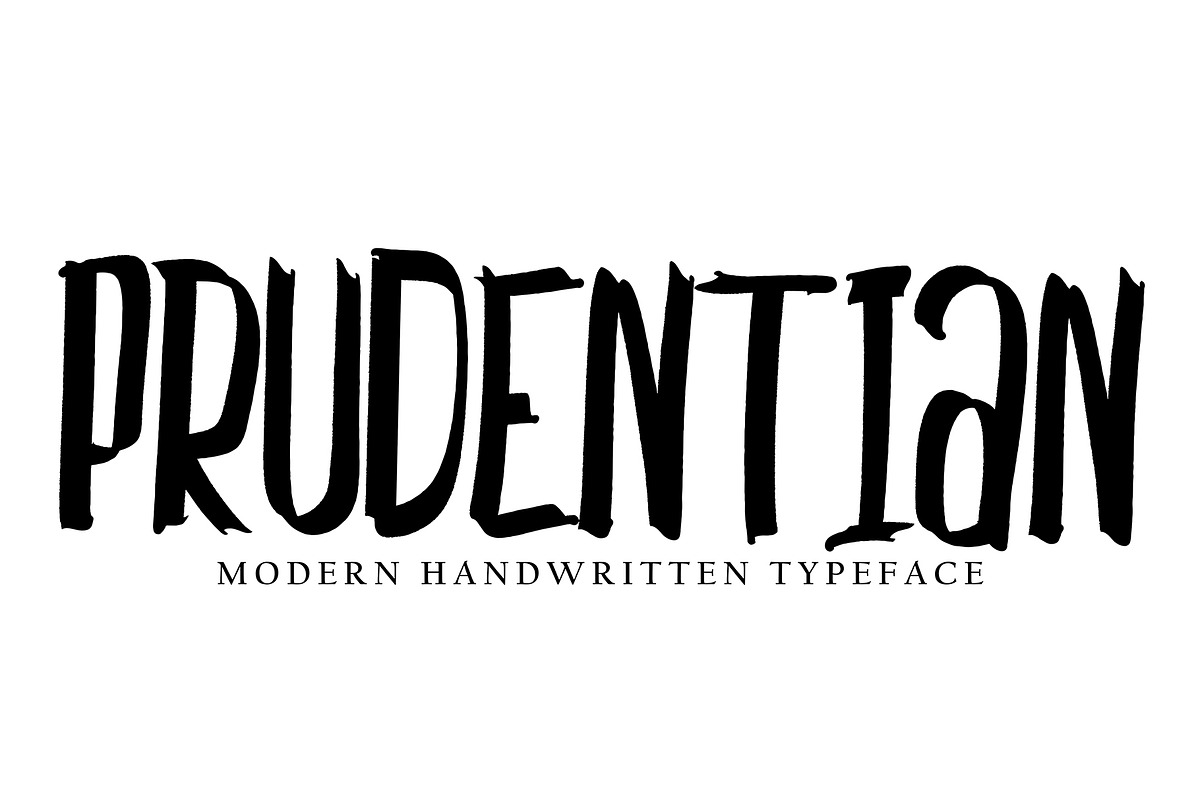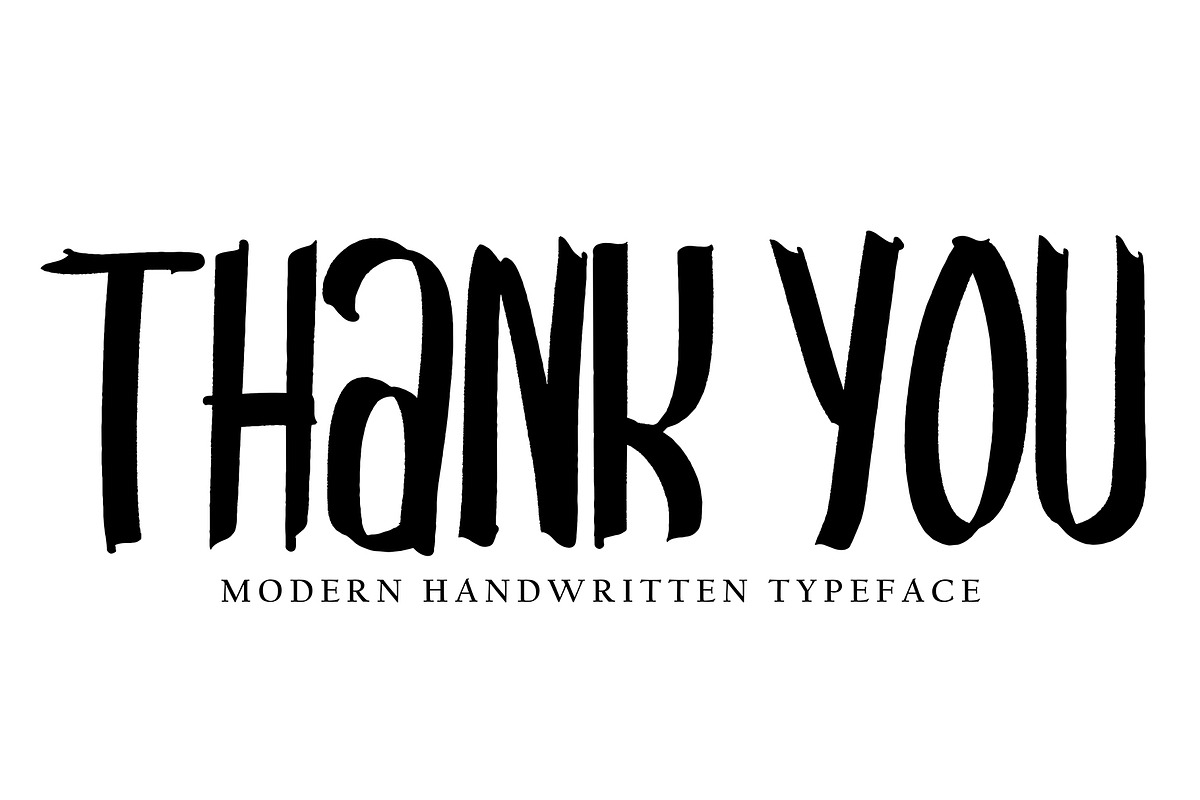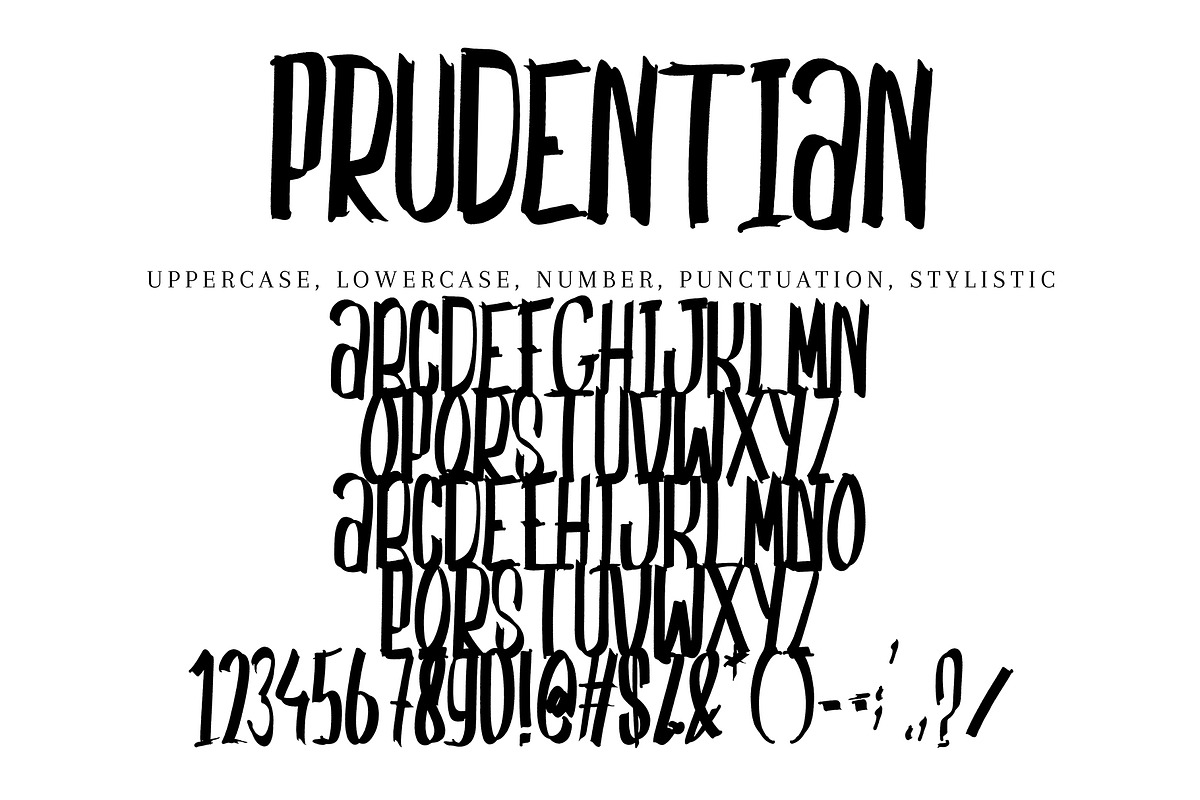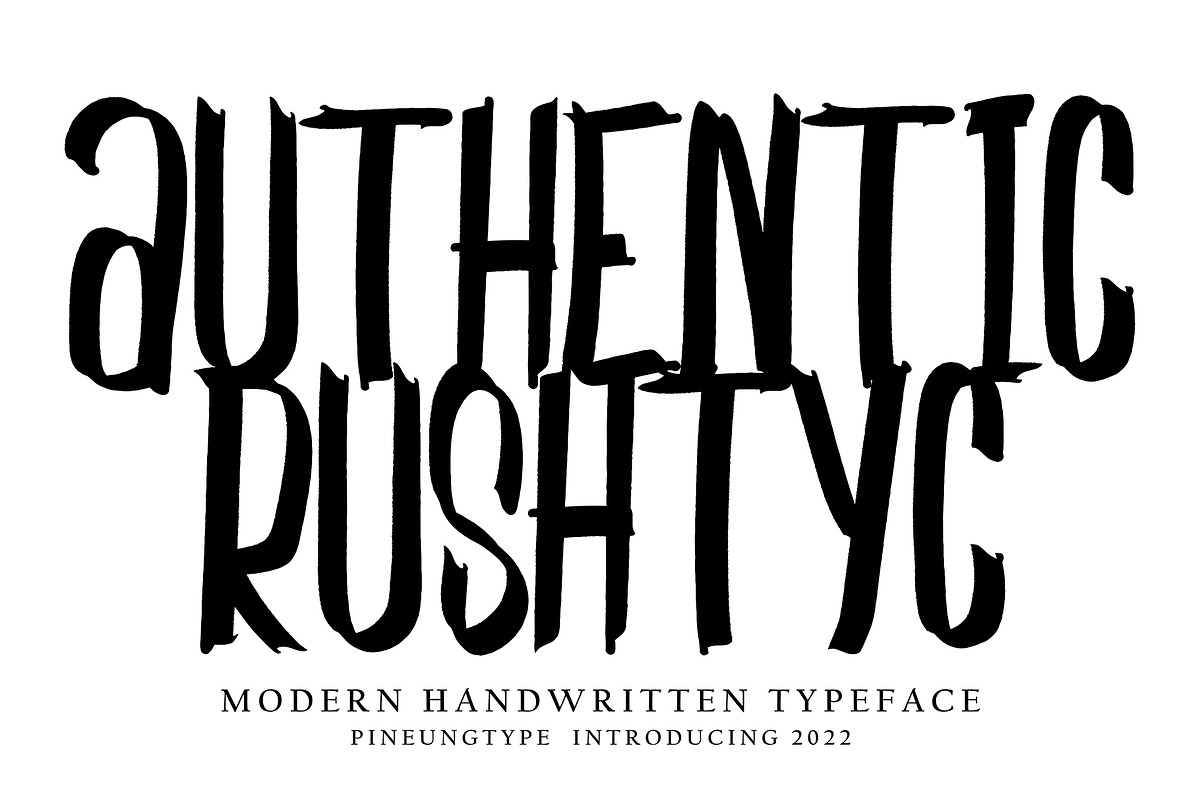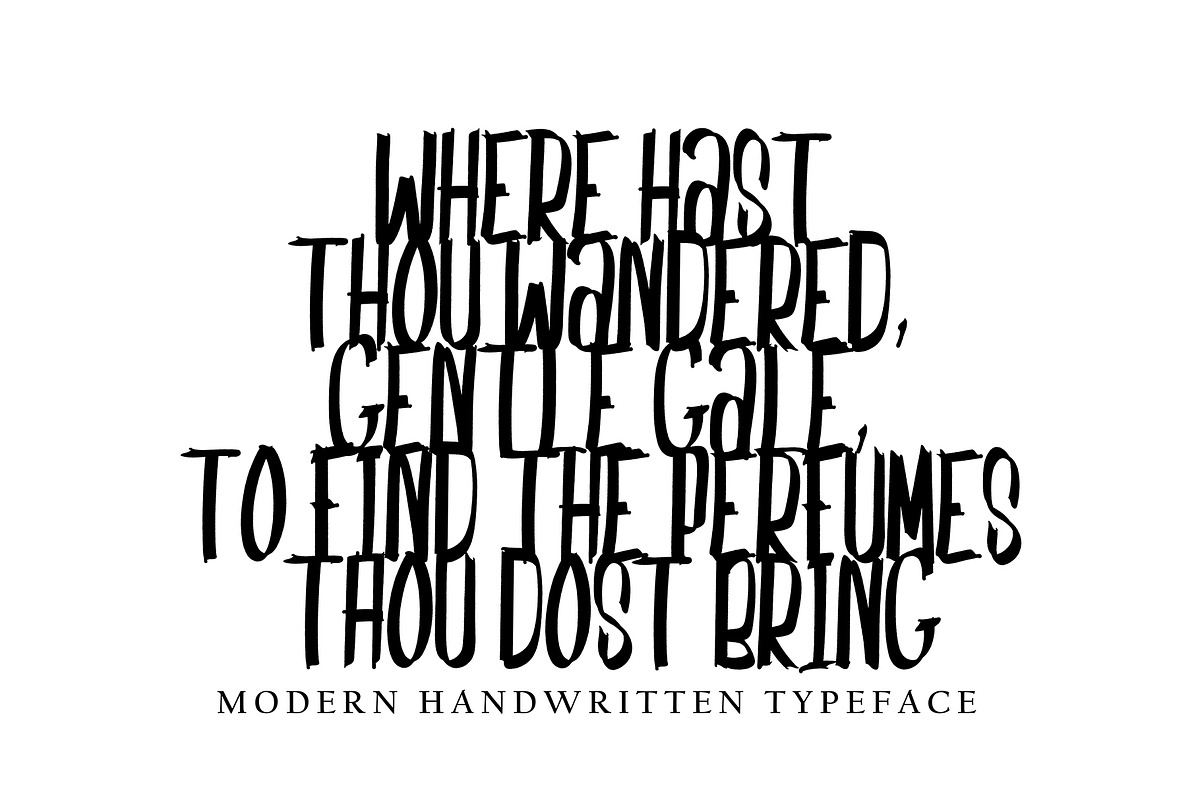
Prudentian
Prudentian with new style, this font will perfect for many different project ex: quotes, logo, blog header, poster, banding, letter, invitation, stationery, etc...